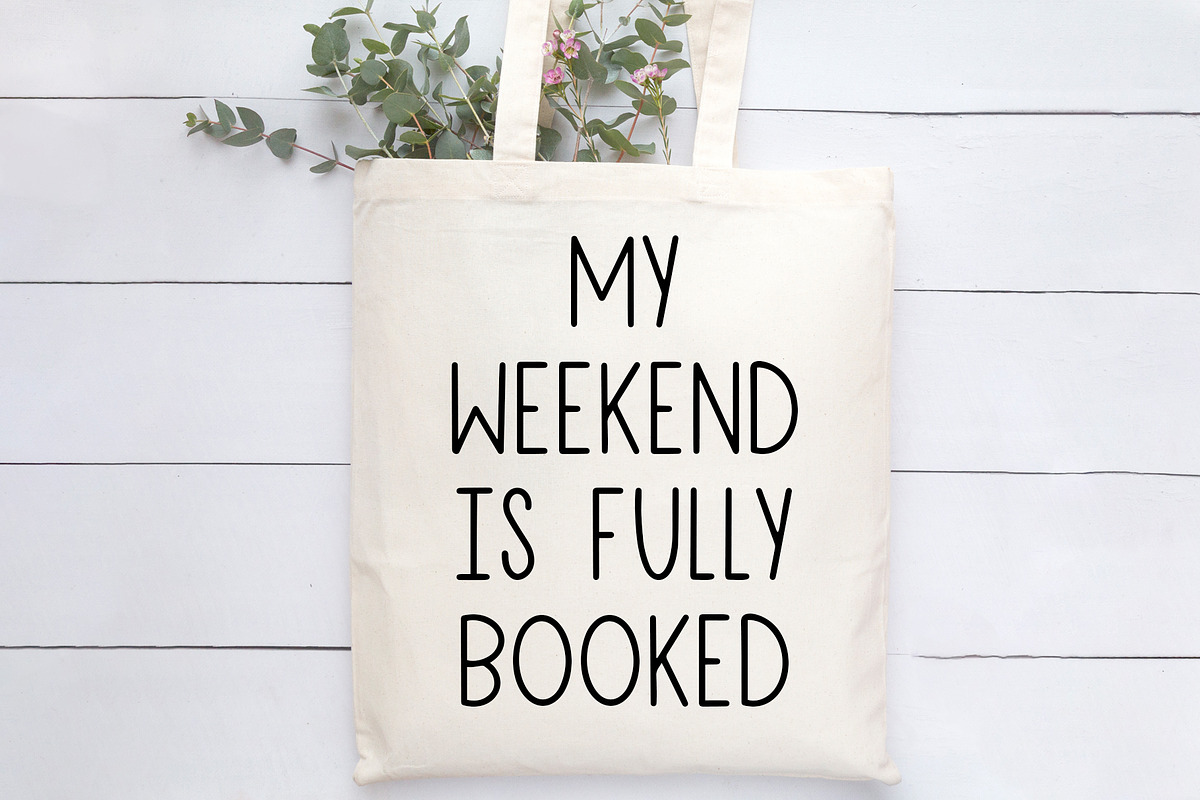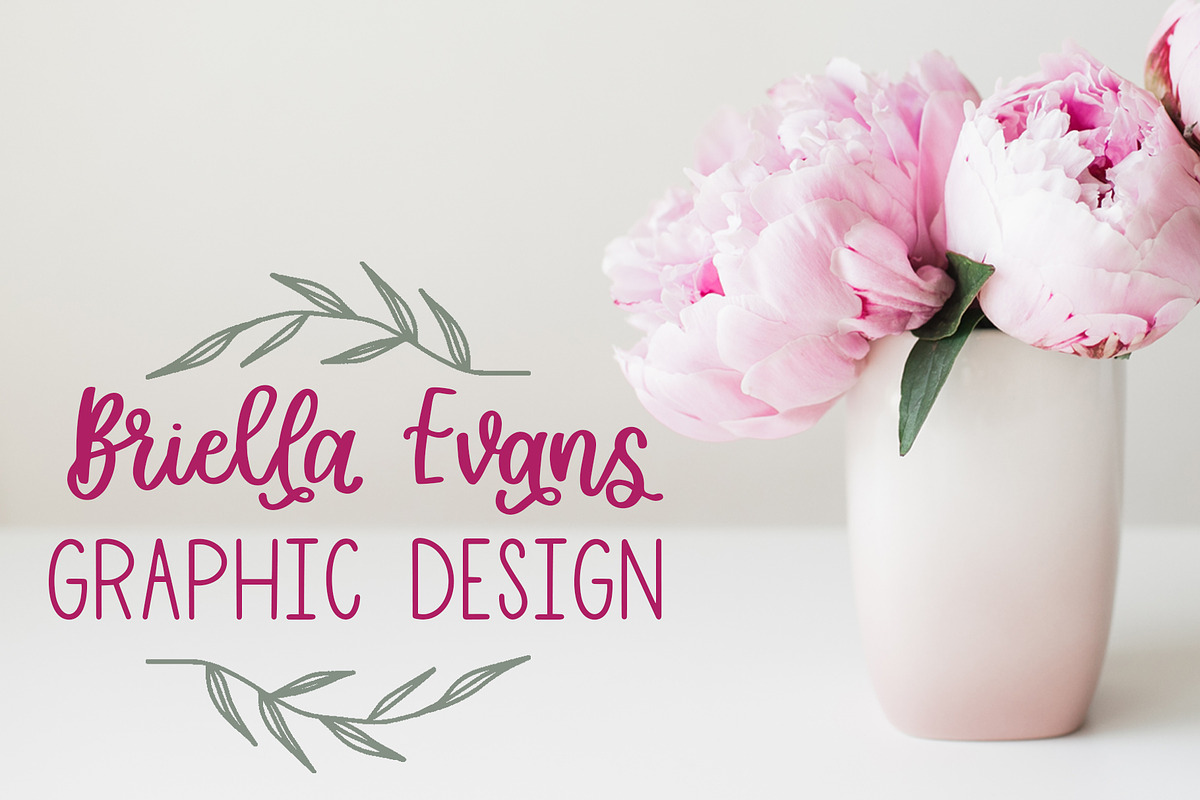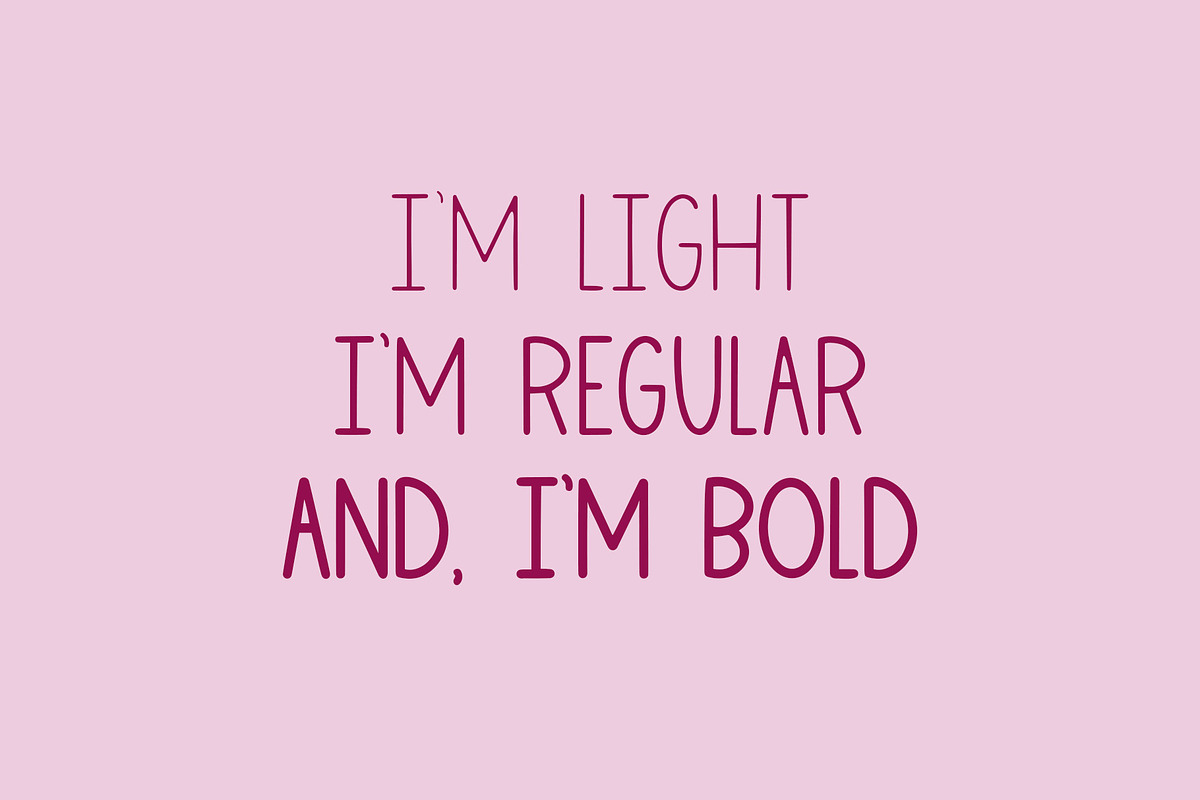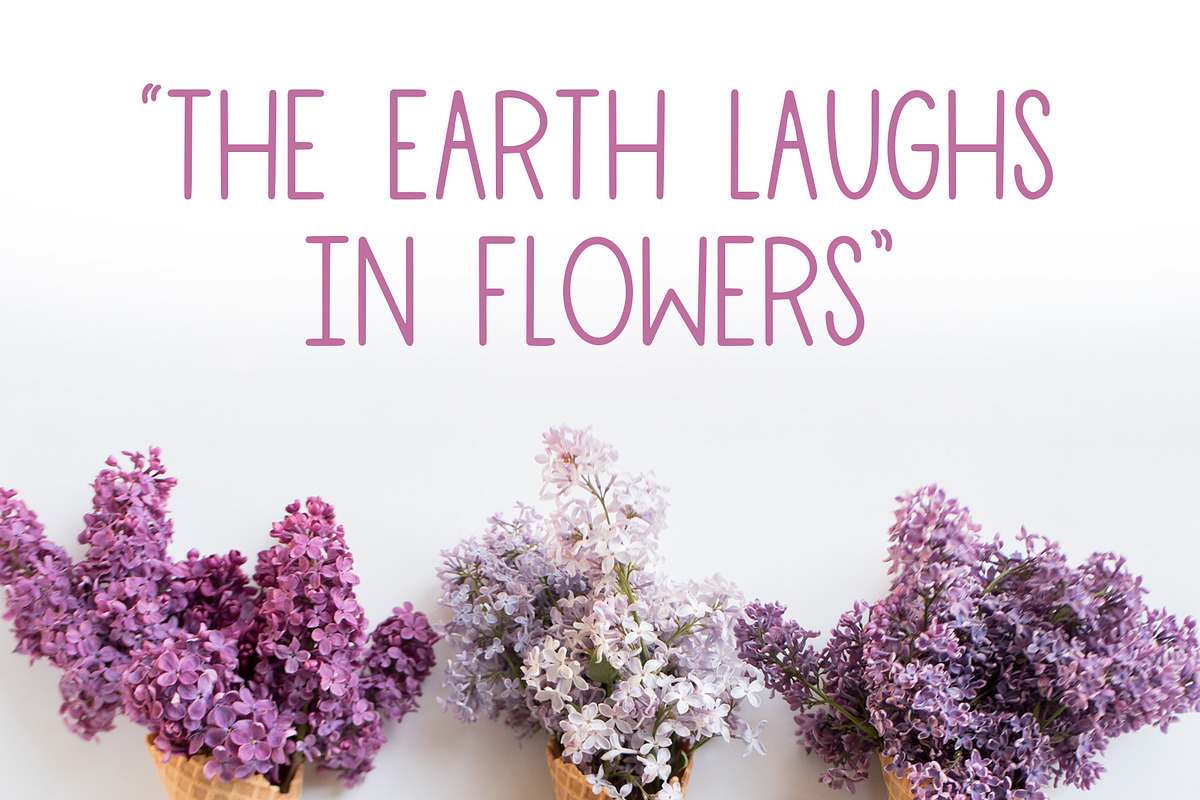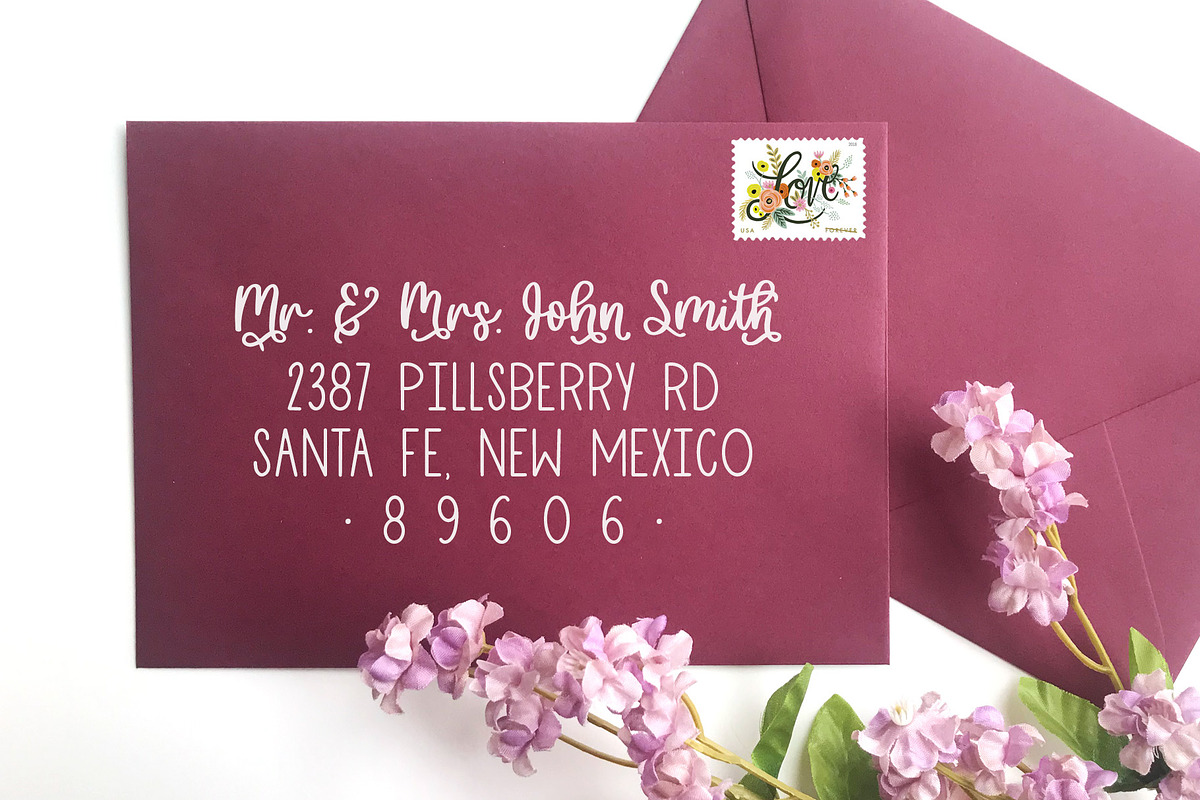
Everly Rain, Sans Serif Font
Everly Rain is a smooth all caps sans serif font that includes a light, regular, and bold version. It's a perfect complimentary font for all of your designing needs!
Everly Rain Font Features:
3 weights: light, regular, and bold
Comes with a full set of capital characters, multilingual support, punctuation and numbers
Everly Rain, Sans Serif Font by Jordyn Alison Designs fits naturally into Branding, posters, packaging, typography.